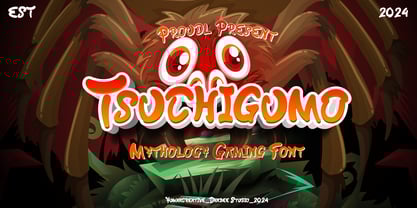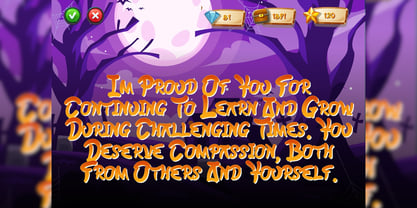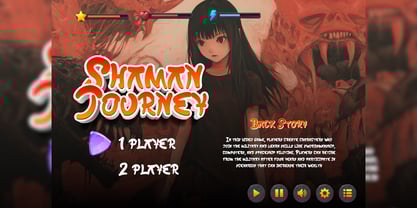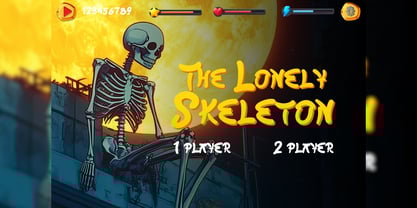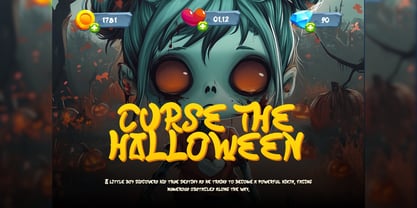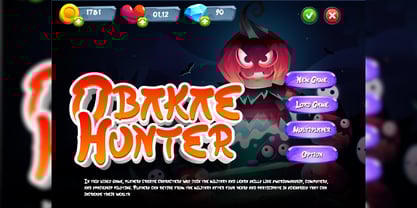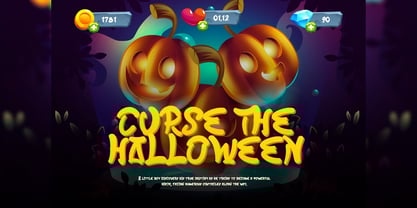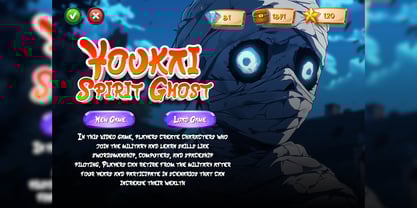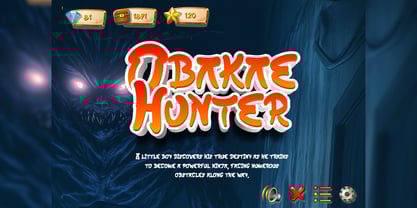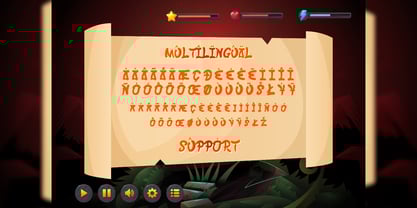
Tsuchigumo
por Yumnacreative
A família de fontes Tsuchigumo foi desenhada por Dhimas Habibie e publicada pela Yumnacreative. Tsuchigumo contém 1 estilos.
Introducing Tsuchigumo - Mythology Gaming Font
This Font is a delicate, elegant and flowing handwritten font. It has beautiful and well as a unique blend of ligatures a letter, so that the authors compose it with a and little swirly embedding, so that a modern font is formed and ready to make a statement by adding elegant and unique flair to your next design project. Add it to your most creative ideas and notice how it makes them come alive!
FEATURES
- Uppercase and Lowercase letters
- Numbering and Punctuations
- Multilingual Supports
Designers: Dhimas Habibie
Publicador: Yumnacreative
Fundidoras: Yumnacreative